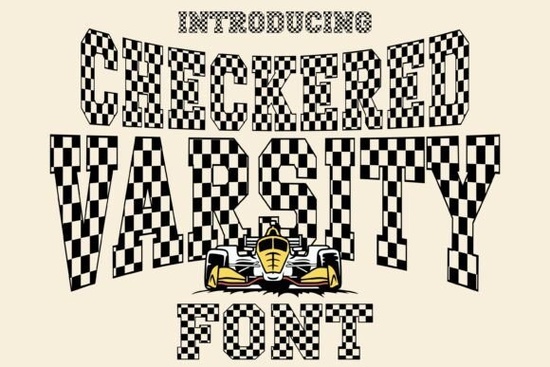
Looking for a typeface that brings together varsity lettering and racing flag energy? The Checkered Varsity Font blends bold block letters with a black-and-white checkered texture inspired by motorsport culture. It's a strong choice for sports branding, event posters, apparel designs, and Cricut projects that need a punchy, high-energy look. Below, I'll walk you through who this font works for, what projects it fits, and how to get the most out of it.
What Does the Checkered Varsity Font Look Like?
This font combines two familiar design languages classic American varsity lettering and the visual drama of a checkered racing flag. The letterforms are blocky and assertive, with sharp outlines and a vintage sport feel. The checked texture layered into each character adds a layer of visual interest that most standard varsity fonts don't offer.
If you've ever seen a finish-line flag or a retro letterman jacket, you already know the vibe. This typeface puts those two worlds together in a way that feels natural rather than forced.
Who Should Use This Font?
This typeface isn't limited to one type of creator. It works well across several groups:
- Racing and motorsport enthusiasts designing team logos, decals, or fan merchandise
- Sports apparel sellers who need bold, readable lettering for jerseys, hoodies, and hats
- Print-on-demand sellers creating designs for t-shirts, mugs, and stickers
- Event organizers making posters, banners, and social media graphics for races, tournaments, or school spirit events
- Cricut and Silhouette crafters cutting vinyl decals, iron-on transfers, or paper crafts
- Small business owners in the fitness, sports, or automotive space who need branded materials
The key thing to understand is that this font leans into a very specific mood: speed, competition, and vintage athletic pride. If that matches your project's tone, it's a strong fit.
What Types of Projects Does It Work For?
Here are some practical ways creators are using fonts like this one:
- Racing team logos The checked pattern and varsity shape give instant motorsport credibility.
- Sports event flyers Bold enough to read from a distance, with enough texture to stand out up close.
- Apparel mockups Works on the front of a jersey, across a hoodie chest, or on a baseball cap.
- Car decals and wraps The racing flag aesthetic pairs naturally with automotive design.
- Social media graphics Strong enough to grab attention in a fast-scrolling feed.
- Cricut projects The bold shapes cut cleanly, especially on vinyl and heat-transfer material.
For best results, use this font at larger sizes. The checkered texture shows its detail best when the letters have room to breathe. At very small sizes, the pattern can get muddy, so keep it for headlines, titles, and display text rather than body copy.
How Does It Compare to Other Decorative Fonts?
The Checkered Varsity Font fills a very specific niche. It's not trying to be a general-purpose typeface. Instead, it leans fully into the racing and varsity aesthetic. That specificity is actually its strength when the project calls for speed and sport, this font delivers the right visual language without needing extra design work.
A Few Tips for Working With This Font
- Pair it with simple sans-serifs for body text. Because the display font is so textured, your supporting text should stay clean.
- Use high contrast backgrounds. The checkered pattern reads best against solid, simple backgrounds.
- Keep your color palette simple. Black, white, red, or navy blue complement the racing theme without competing with the texture.
- Test at the size you'll actually use. Print a sample or preview at full scale before finalizing.
If you're interested in the technical and cultural roots of racing flag design, the visual history behind those iconic black-and-white checks is worth a quick read.
Before you download, run through this list to make sure the Checkered Varsity Font is the right call for your project:
- ✅ Your project has a sports, racing, or varsity theme
- ✅ You need a display or headline font, not body text
- ✅ You plan to use it at medium to large sizes
- ✅ Your design works with bold, textured typography
If most of those boxes are checked, this font is a solid addition to your toolkit. Take a moment to preview it with your own project text before committing seeing your actual words in the typeface is the best way to know if it's the right fit.